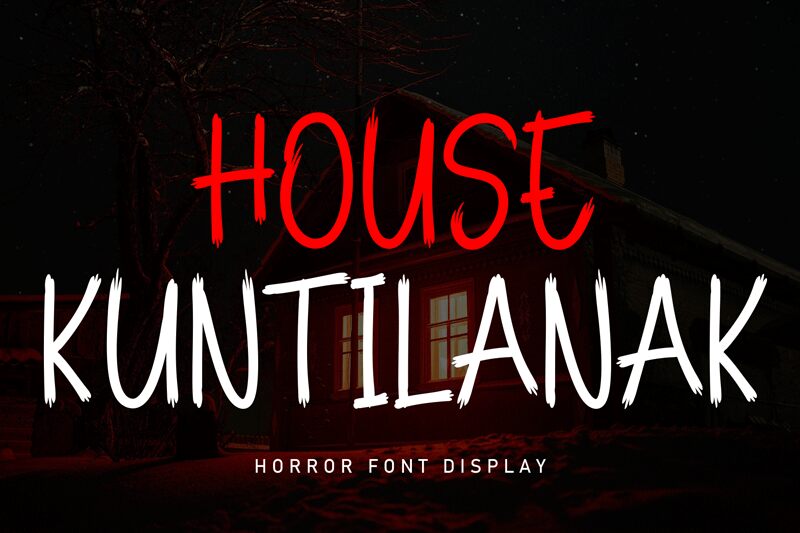
House Kuntilanak font by Andi Moz is a scary display font with a condensed design. Its sharp and irregular appearance creates an eerie, tension-filled energy that captivates any audience. Expressive and possessing a haunting atmosphere, it truly delivers unique typography that is hard to find elsewhere.
Get spooked by this free horror font in posters for horror movies, spooky Halloween invitations, ghost stories book covers or pages, mystery event pamphlets and leaflets, or banners for commercial purposes. Being inspired by ghosts adds the magical element many graphic designers are always after!